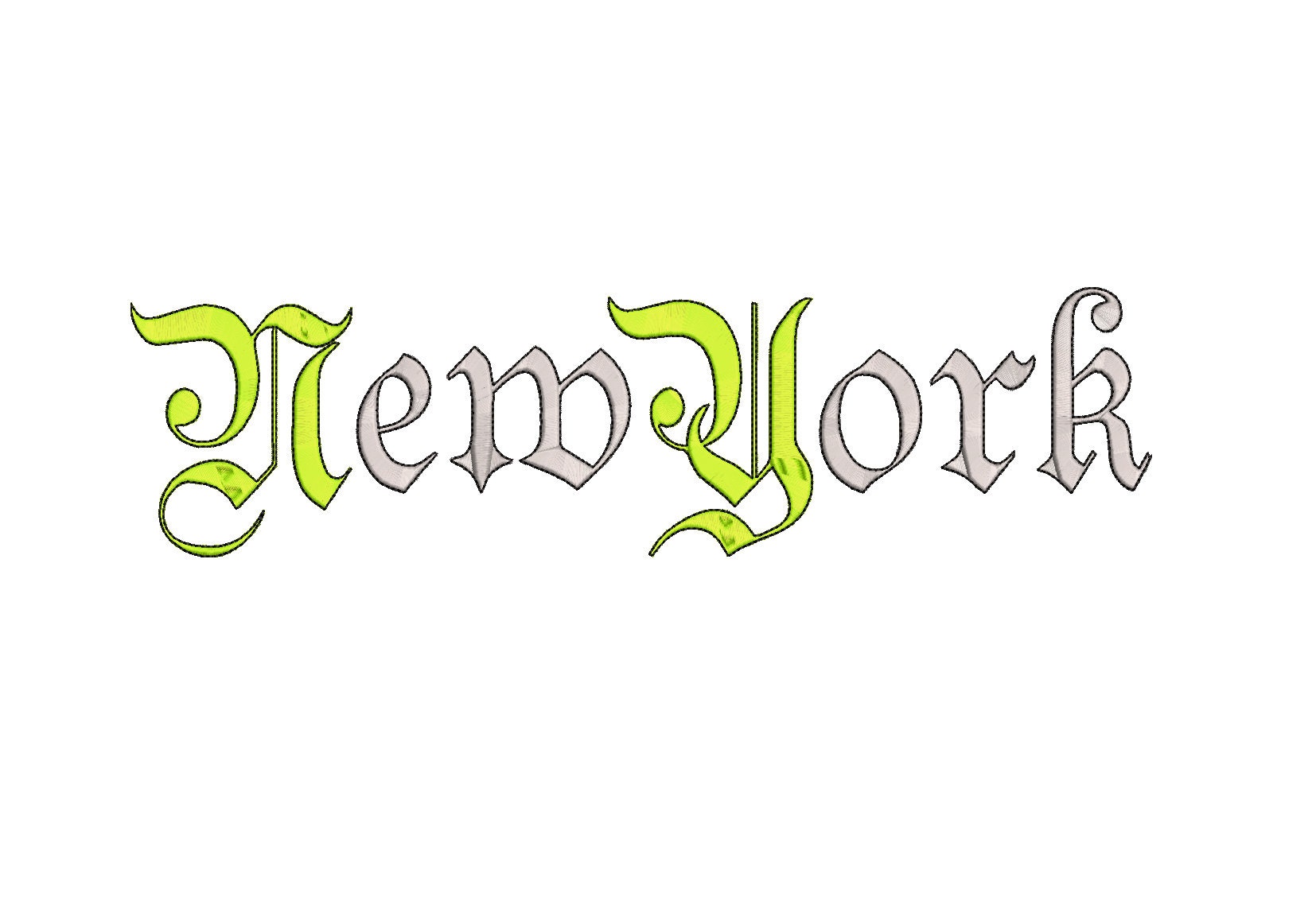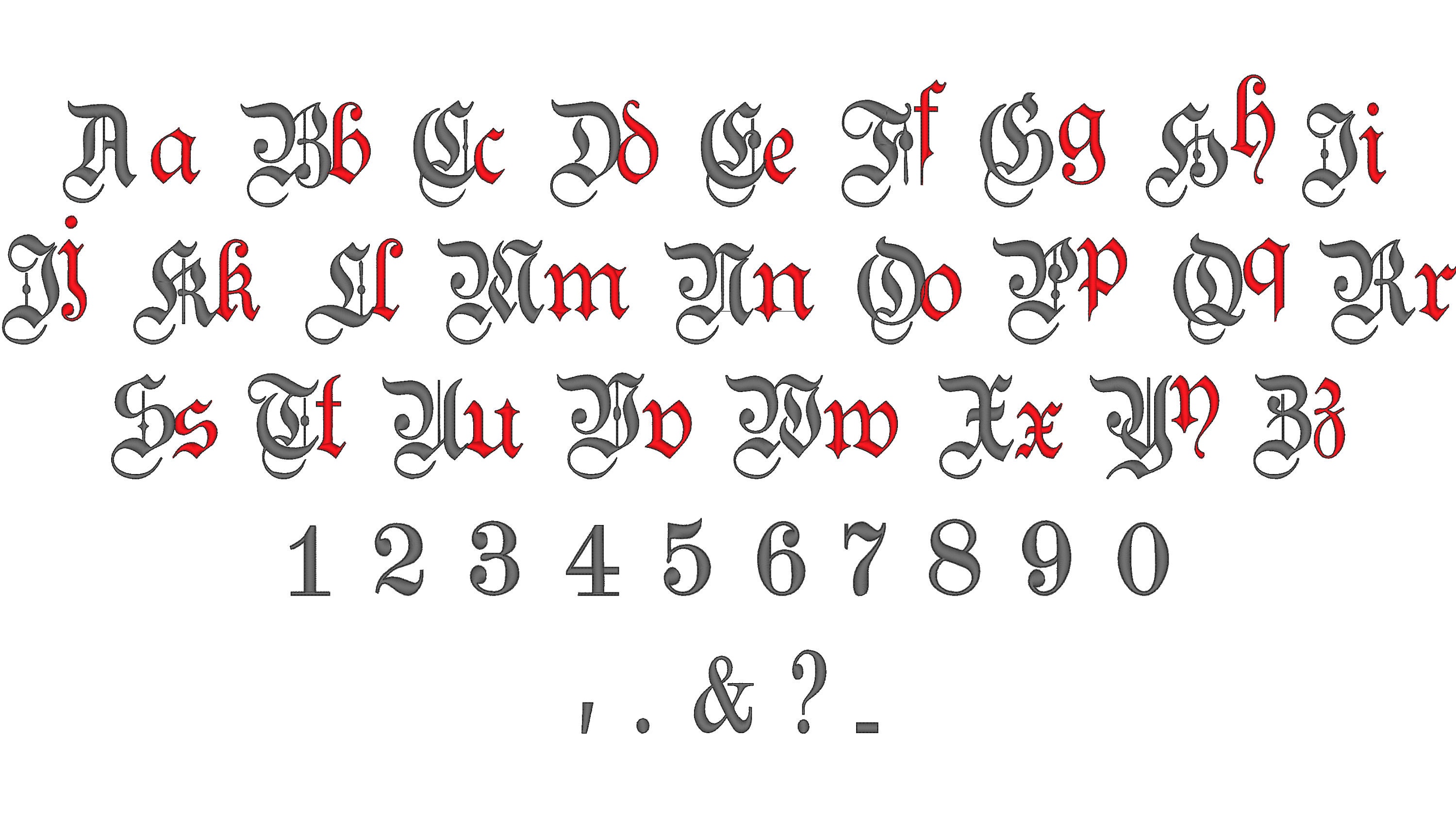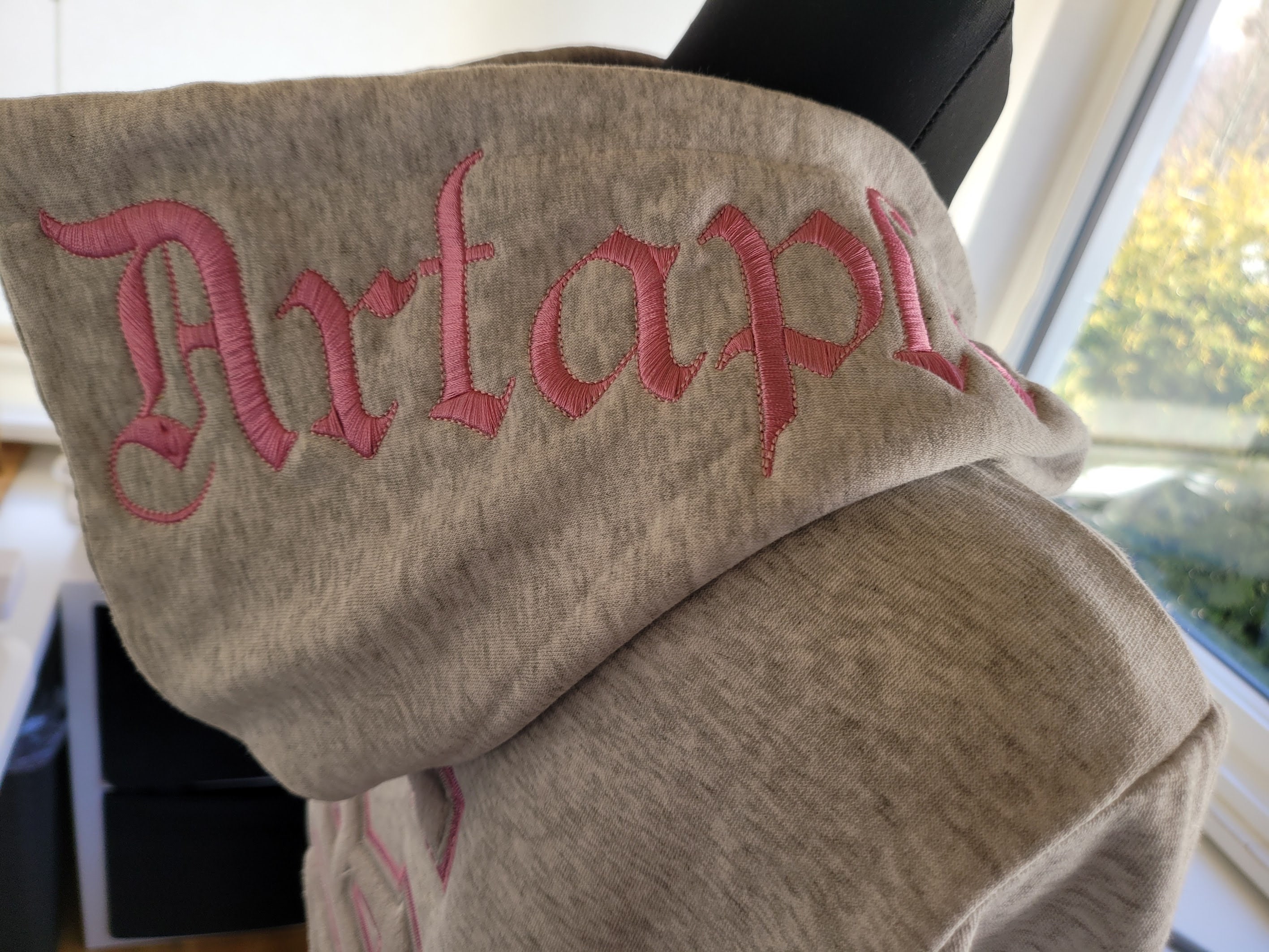
Old English satin and bean stitch outline Font machine embroidery designs Classic Gothic alphabet letters from 1 up to 4.5 inches BX included
Capital letters and lowercase letters